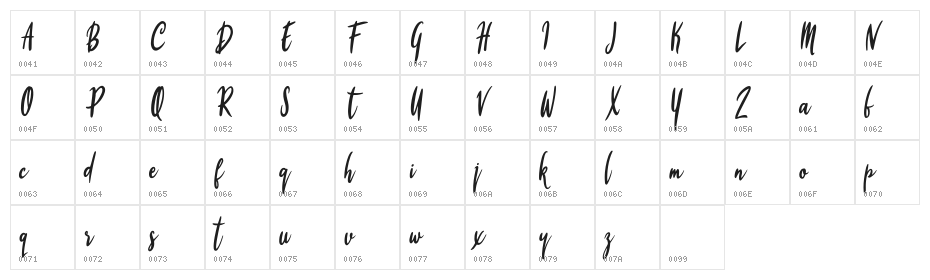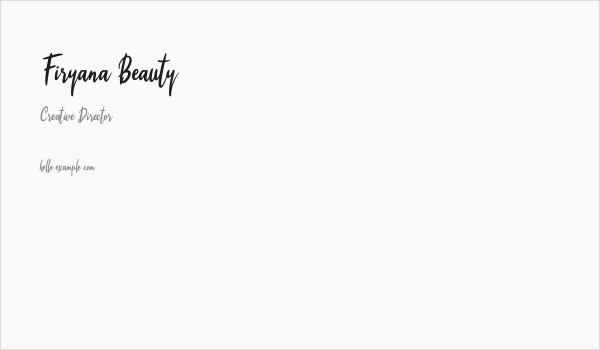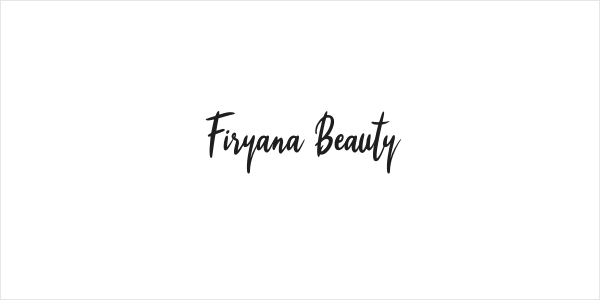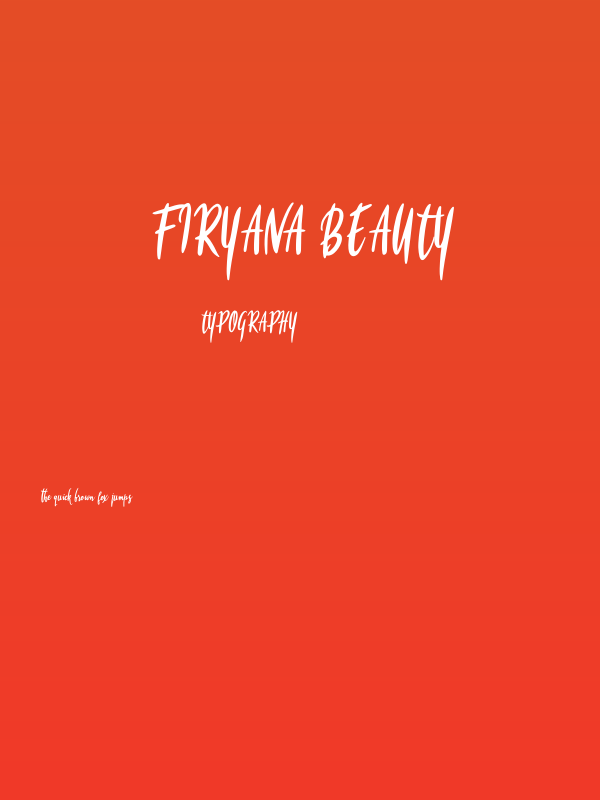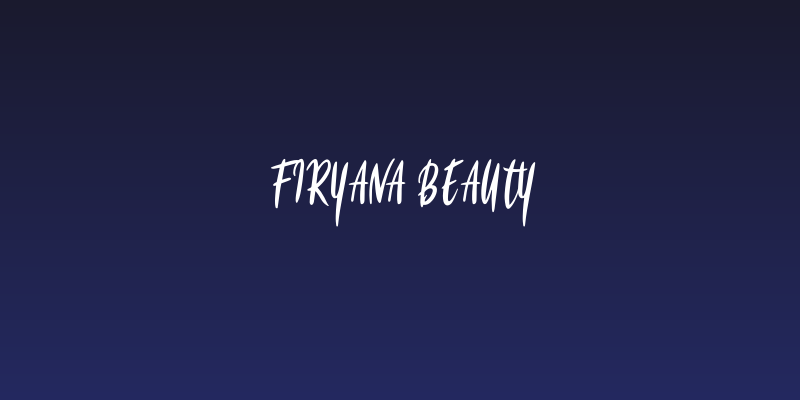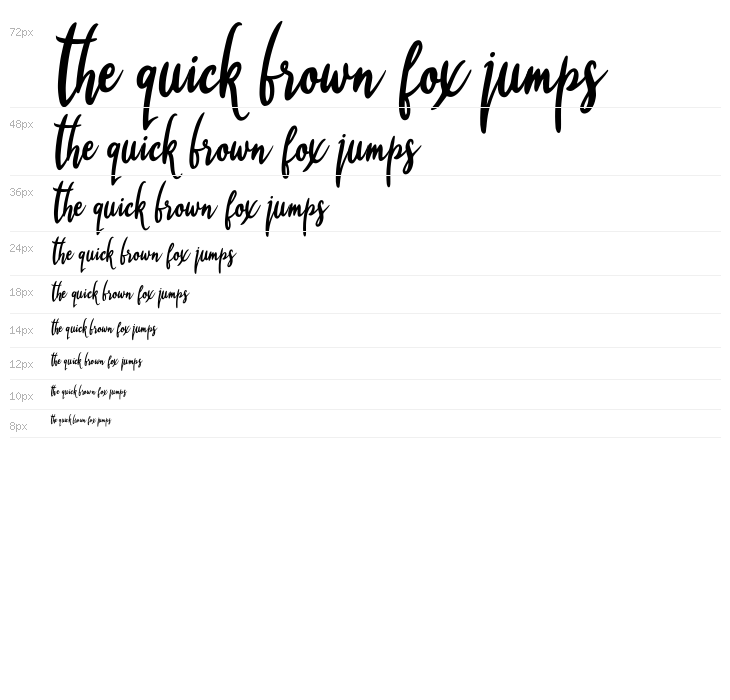
Firyana Beauty Font
Firyana Beauty Description
This font exudes a lively and expressive character with its bold, flowing script style. The letters are elegantly connected, creating a sense of movement and fluidity. The uppercase letters are tall and slightly condensed, while the lowercase letters maintain a consistent rhythm with their cursive forms. The strokes are thick and dynamic, adding to the font's energetic appearance. This style is reminiscent of modern calligraphy, making it suitable for designs that require a personal and artistic touch.
| Proposed Projects | Ideal for wedding invitations, branding projects, greeting cards, and any design that requires a personal, artistic touch. |